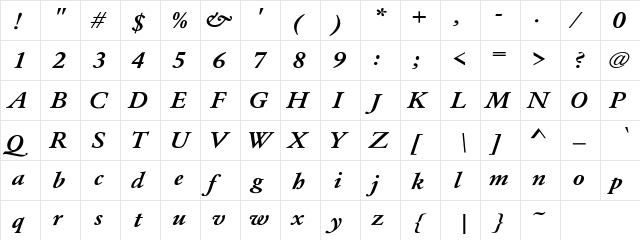
WhittiedMediu 4 Regular Font Preview
WhittiedMediu 4 Regular
WhittiedMediu 4 Regular Font Details
Design Context for WhittiedMediu 4 Typeface
WhittiedMediu 4 is a composed and adaptable typeface that performs quietly and consistently across a wide range of design contexts.